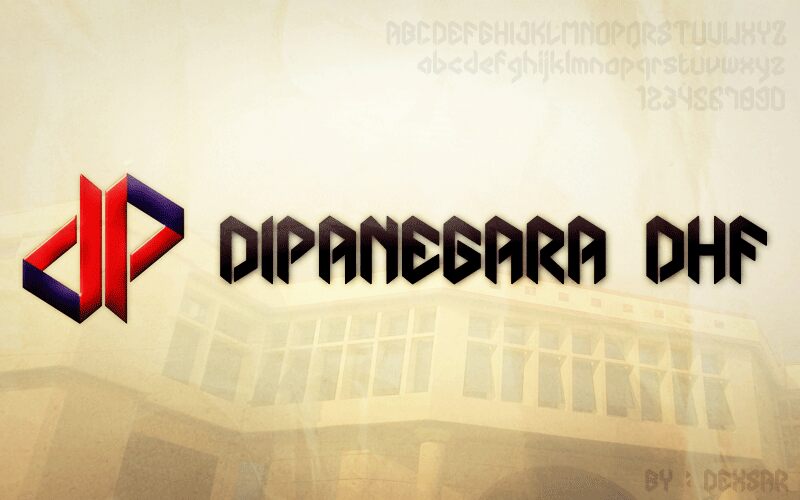
Dipanegara DHF, designed by Dexsar Harry Anugrah of Dexsar Harry Font, is a free futuristic display font with an angular, engineered build. Its towering letters combine broad vertical strokes with deep notches and abrupt diagonal cuts. Several forms resemble interlocking metal panels.
Digital graphics provide a natural setting for its hard-edged construction, especially in game title screens and electronic music posters. The same aggressive geometry suits streetwear merchandise and branding for technology-focused events. Across these settings, the repeated wedges and cutaway shapes can echo armor, machinery, or angular interface elements.
The Special Font For Stmik Dipanegara Makassar